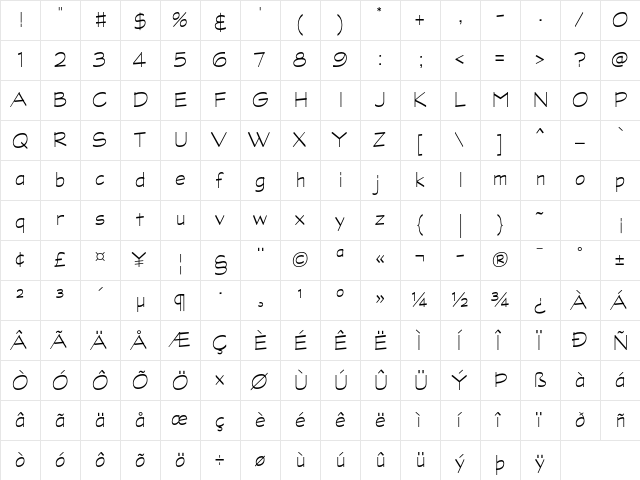
Graphite Std Light Font Preview
Graphite Std Light
Graphite Std Light Font Details
| Designer | David Siegel |
Design Context for Graphite Std Typeface
Graphite Std is a composed and adaptable typeface that performs quietly and consistently across a wide range of design contexts. The delicate stroke weight brings airiness and refinement to layouts.